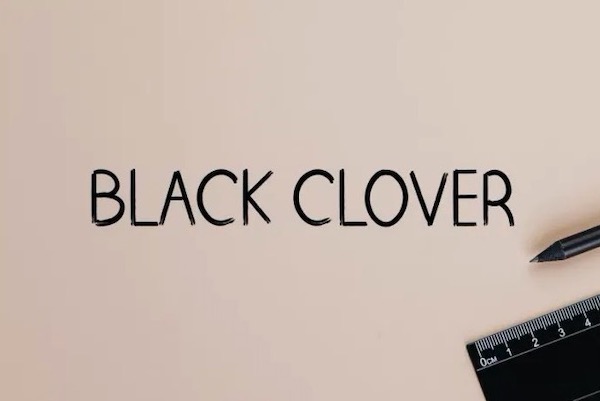
Black Clover is an adaptable and casual display font. Its casual vibe and informal style will make this brush font a go-to choice for each of the creations that require a relaxed touch.
Blackclover Display Font